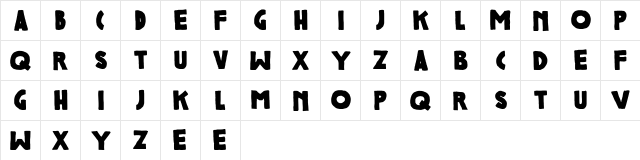
Colcothar Regular
| Designer | Fabrice Ducouret |
Design Context for Colcothar Typeface
Colcothar offers clean, dependable letterforms without strong stylistic allegiance, making it a practical choice for designers who need flexibility.